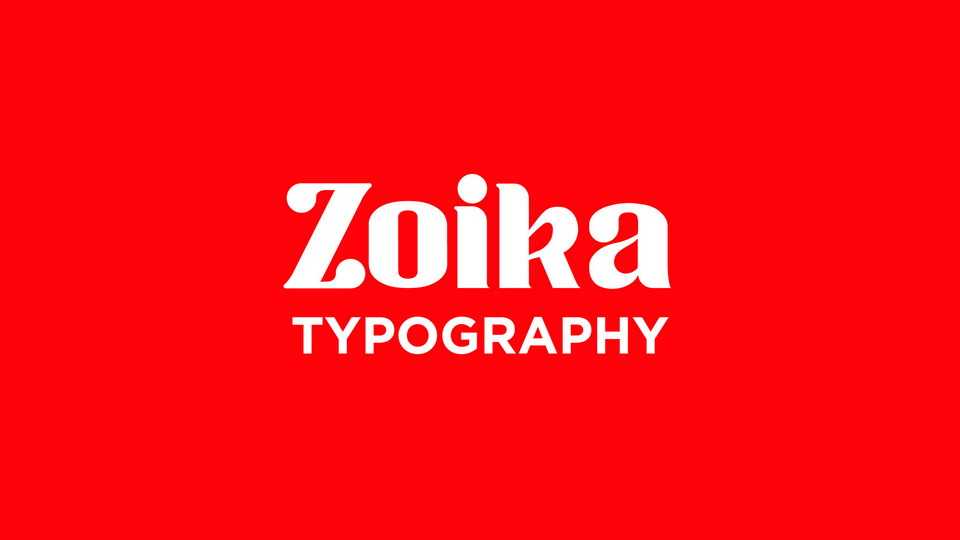
Download Zoika font, an amazing powerful typeface with a bold and soft look. Zoika is perfect for logos and branding, headlines and posters, covers, banners and other creative projects.
Designer: Victor Zanin